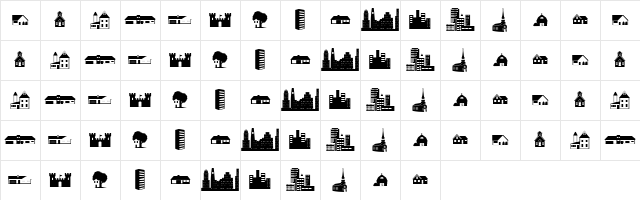
Little City 2000 Regular Free Font
Little City 2000 Regular
Design Context for Little City 2000
Little City 2000 is a composed and adaptable typeface that performs quietly and consistently across a wide range of design contexts.
Pro Tip: Use Little City 2000 in both headline and body roles to test its range before committing to a single application.